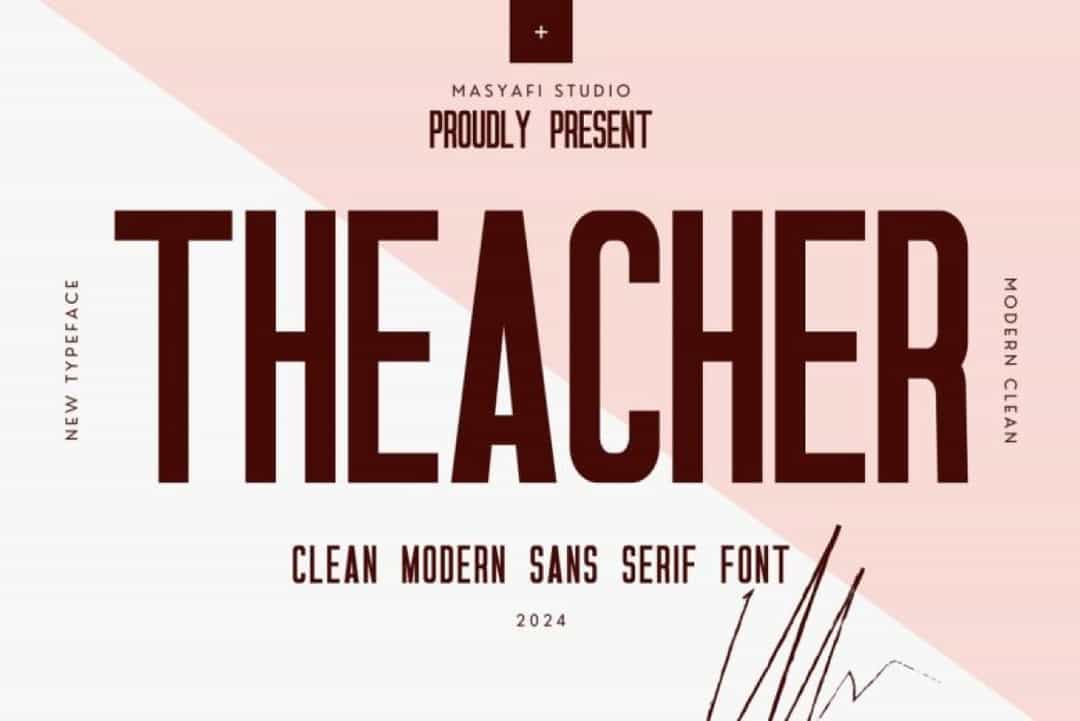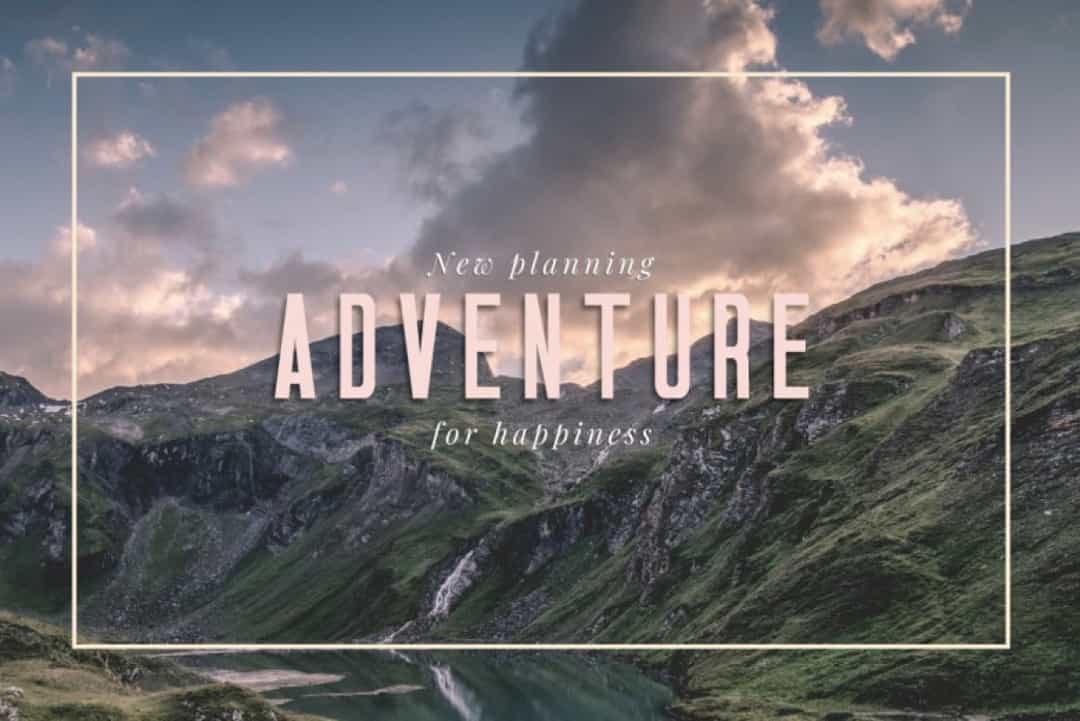
Teachers is an elegant and clear sans serif font suitable for crafting, labeling and quotes as well as SVG files logotypes, decorations, labels on T-shirts as well as book covers, posters, websites and wall art among many other applications.